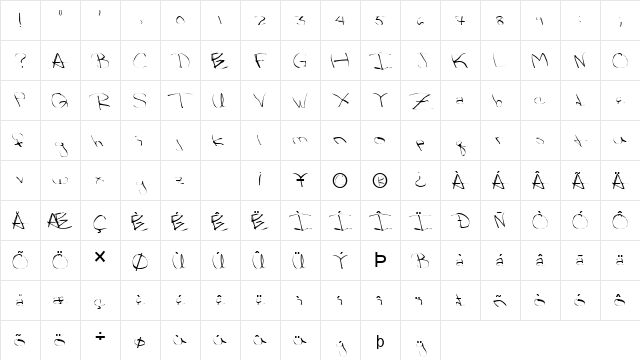
FZ WARPED 32 Normal Free Font
FZ WARPED 32 Normal
Design Context for FZ WARPED 32
FZ WARPED 32 is a composed and adaptable typeface that performs quietly and consistently across a wide range of design contexts.